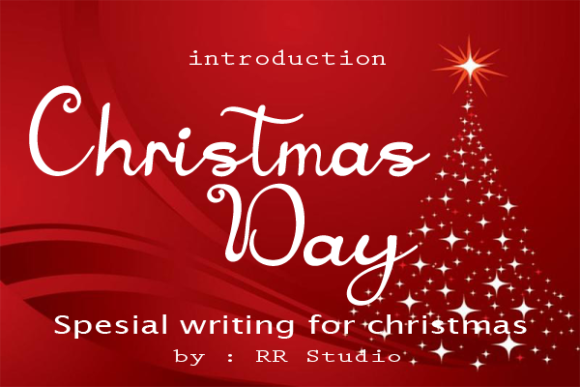
Christmas Day Font
About Christmas Day Font
Christmas Day is an incredible and elegant handwritten font, perfect for Christmas designs. It will look stunning on wedding invitations, thank you cards, quotes, greeting cards, logos, business cards, and every other design which needs a handwritten touch.